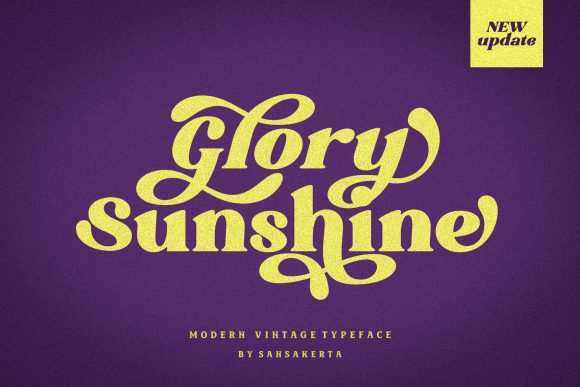
Behold Glory Sunshine, a delightful serif font that radiates joy and enchantment into your designs. Created by the talented dnartdesignn, this whimsical font bursts with charm and character, ready to transform your creative visions into captivating realities.
Step into a world of visual delight as Glory Sunshine's elegant curves and playful flourishes dance across your screens. Its unique personality will add a touch of magic to any project, whether you're crafting logos, invitations, or social media posts. Experience the joy of seamless readability as Glory Sunshine's clear and legible letterforms guide your readers through your content with effortless grace.
With Glory Sunshine by your side, your designs will blossom into works of art, capturing the attention of all who lay their eyes upon them. Its versatility shines through as it effortlessly adapts to a myriad of design styles, from classic and elegant to modern and edgy. Unleash your creativity and let Glory Sunshine be your muse, guiding you toward design masterpieces that leave a lasting impression.
Picture the allure of a delectable menu adorned with Glory Sunshine's enchanting characters, enticing diners with its playful charm. Or, envision the warmth and elegance of wedding invitations graced with Glory Sunshine's graceful strokes, setting the tone for a truly memorable occasion. The possibilities are endless, as Glory Sunshine's versatility knows no bounds.